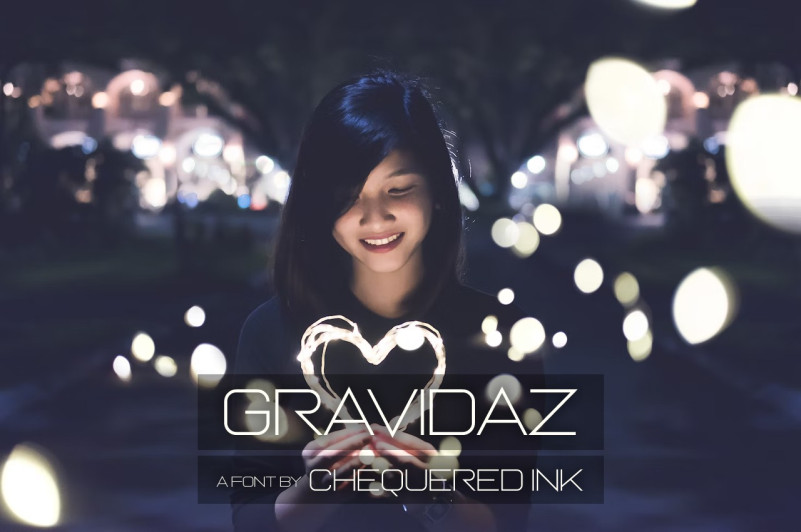
Gravidaz Sans Serif Font, Perfectly fit for branding, logo, wedding things, greeting cards, fashion, lookbook, marketing promotion, anytime you want to look fancy elegant but still casual.